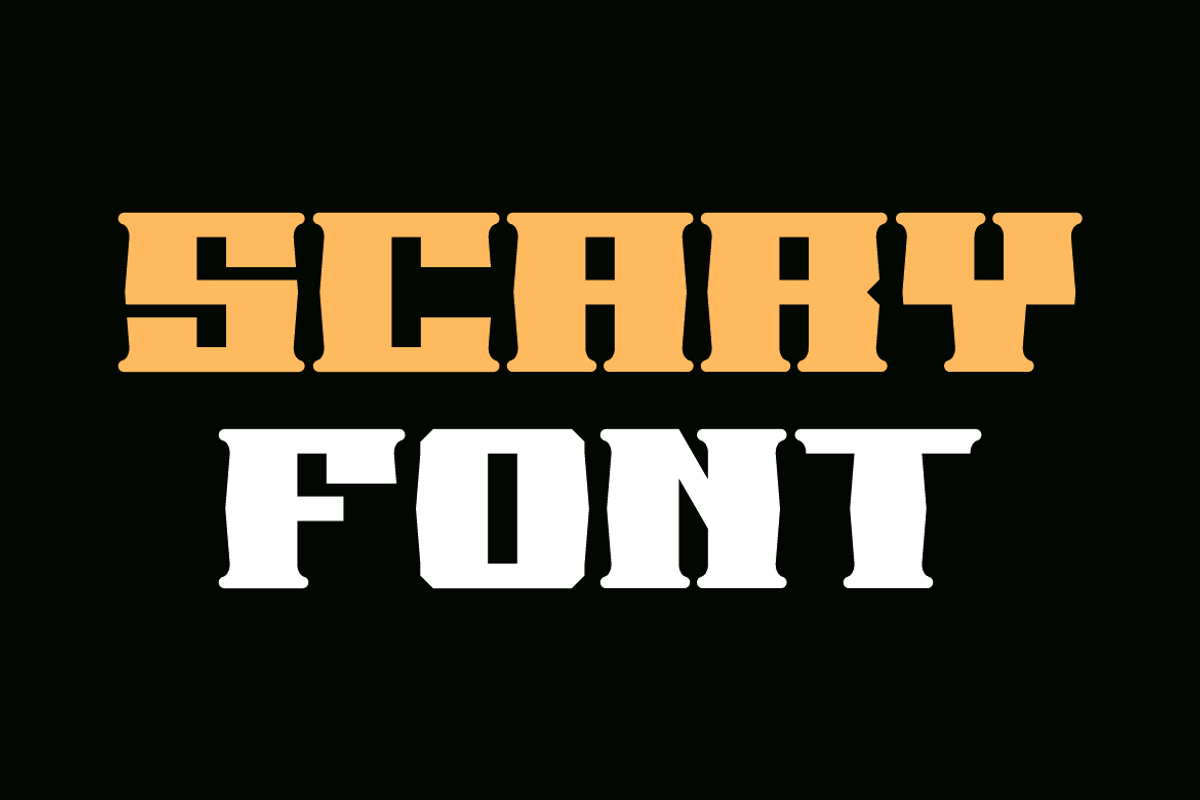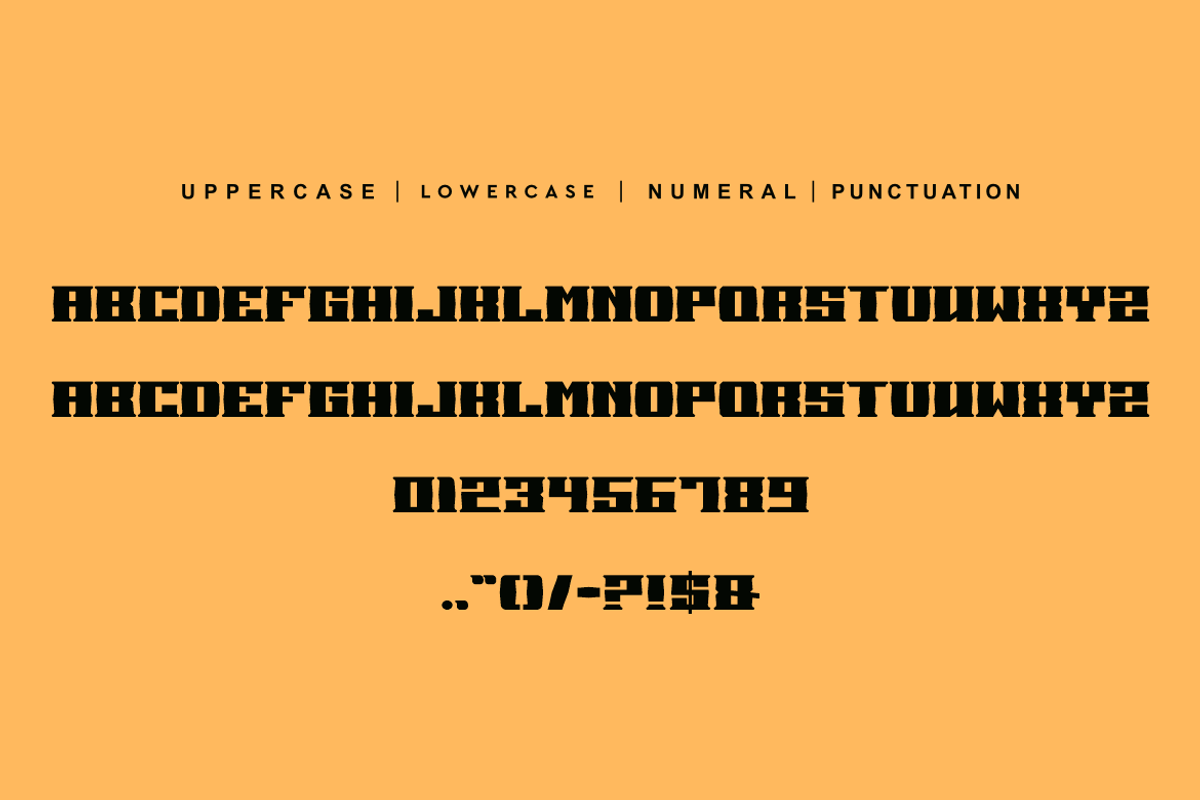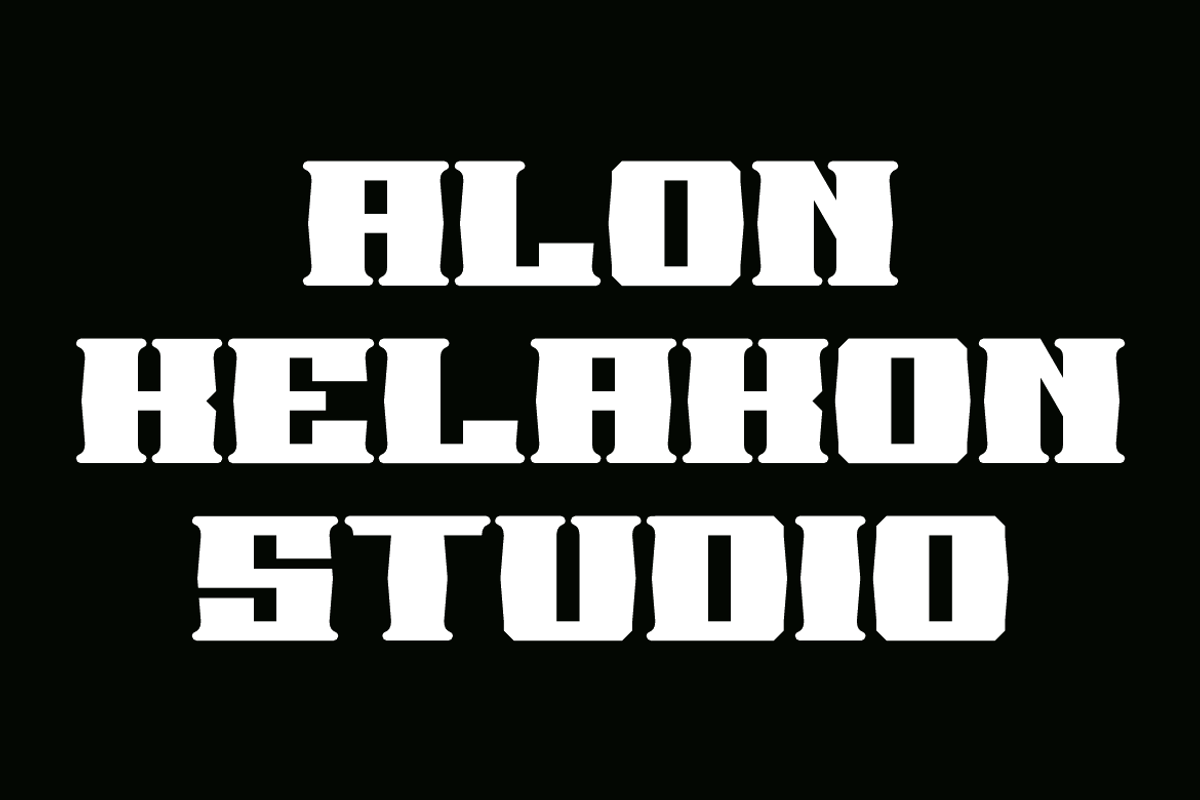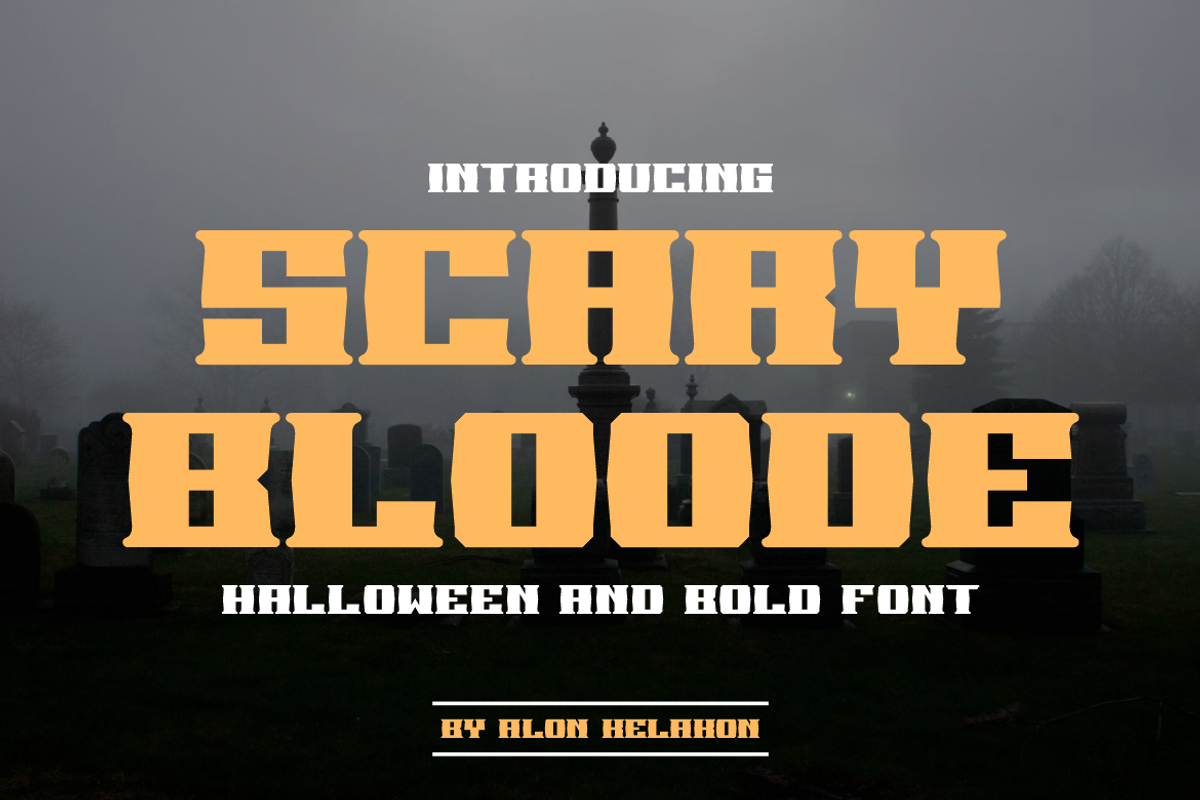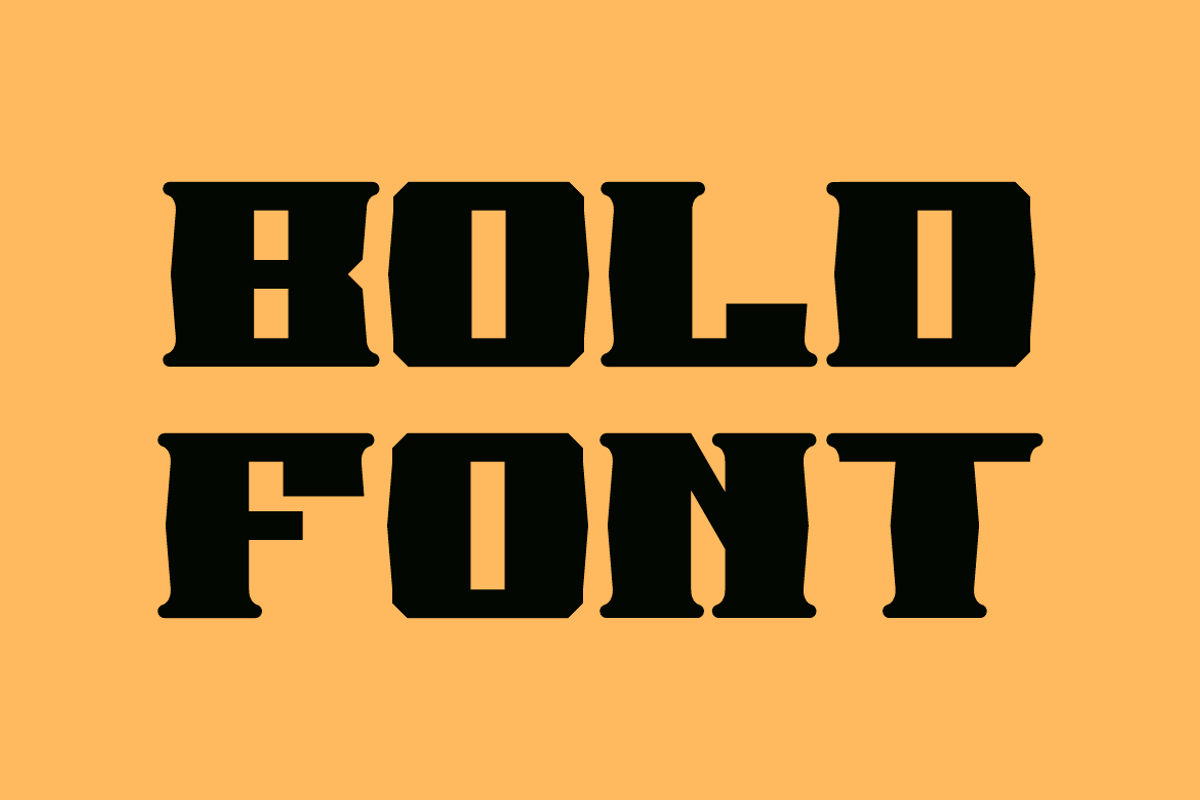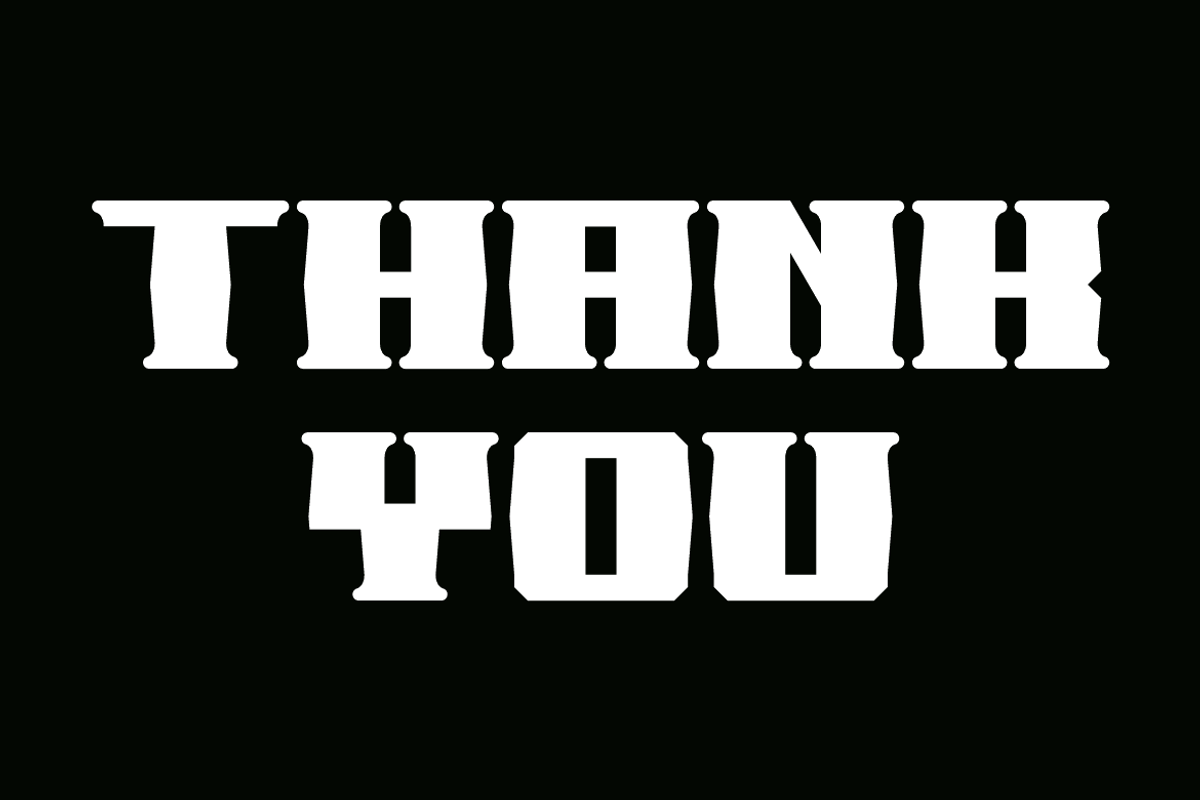
Scary Bloode
Scary Bloode Font is unique . Ready to use for your design like labeling, movie sceen, poster, movie title, gigs, album covers, logos, and much more.